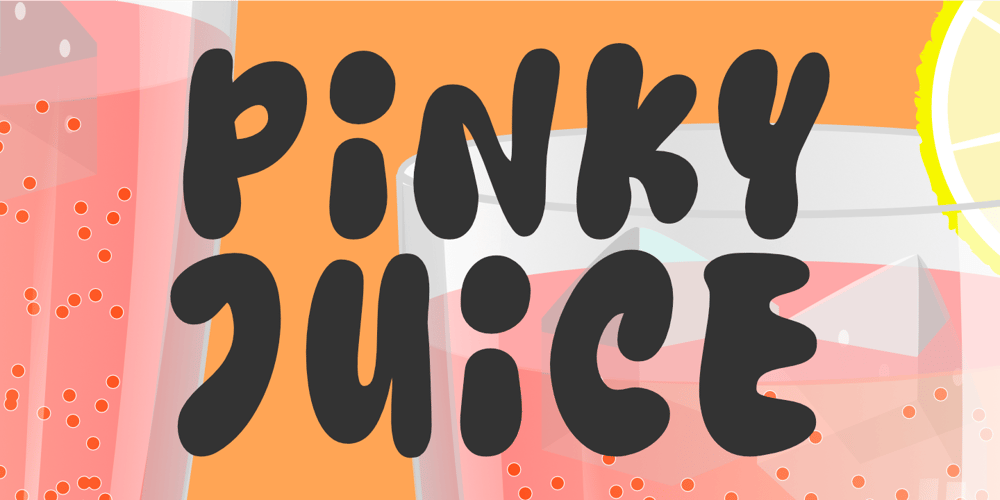
Pinky Juice Font Family was designed by Nurul Hidayani and published by Olivetype. Pinky Juice contains 1 styles and family package options. Pinky Juice is the perfect way to add some fun and personality to your work. It’s a bold, playful font that will make your work stand out. Plus, it’s very cute!Thank You!